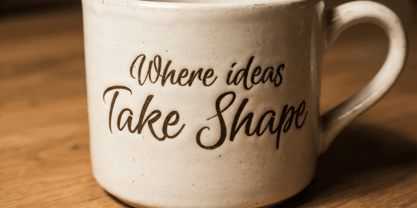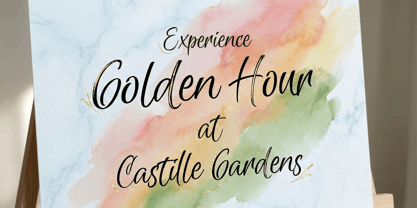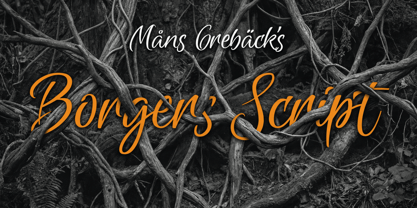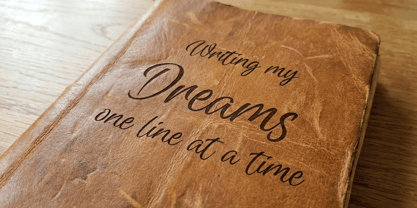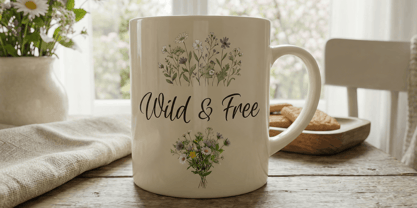
Borgers Script
by Mans Greback
The Borgers Script Font Family was designed by Måns Grebäck and published by Mans Greback. Borgers Script contains 4 styles and family package options. More about this family
Borgers Script is a relaxed handwritten script with a light, friendly rhythm. It carries a natural flow that feels written in one sitting, without rushing or posing. The letterforms are smooth and slightly bouncy, with gentle connections and open shapes that keep the text readable. Capitals are expressive without being loud, while the lowercase keeps an even pace across words and lines. The overall impression is casual and personal, like a familiar note or a quick signature. The font is built with advanced functionality and guaranteed top-notch quality, containing stylistic and contextual alternates, ligatures and more automatic and manual features; all to give you full control and customizability. It has extensive lingual support, covering all Latin-based languages, from North Europa to South Africa, from America to South-East Asia. It contains all characters and symbols you'll ever need, including all punctuation and numbers. Borgers Script was drawn with simplicity in mind, focusing on a steady hand and natural movement rather than decoration. The shapes are slightly imperfect on purpose, giving the type a human presence that feels honest and unforced.
Måns Grebäck is a type designer and font creator specializing in script typography, but with a portfolio containing a vast selection of styles. Typefaces from Måns Grebäck are used as company and product logotypes, as well as headlines and in advertisement by a wide range of industries world-wide. Founded by Måns Grebäck in 2010, Mans Greback AB originally went under the name of Mawns Fonts and later Aring Typeface AB. While the foundry has its seat Örebro, Sweden, Måns also lives in Portugal. The Premium Foundry page can be viewed Here.